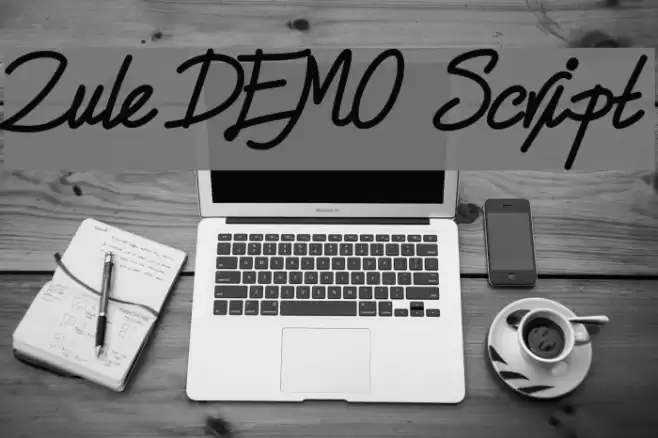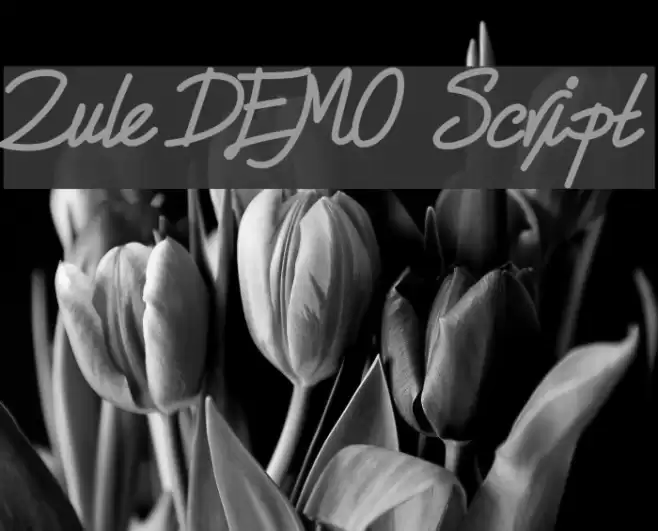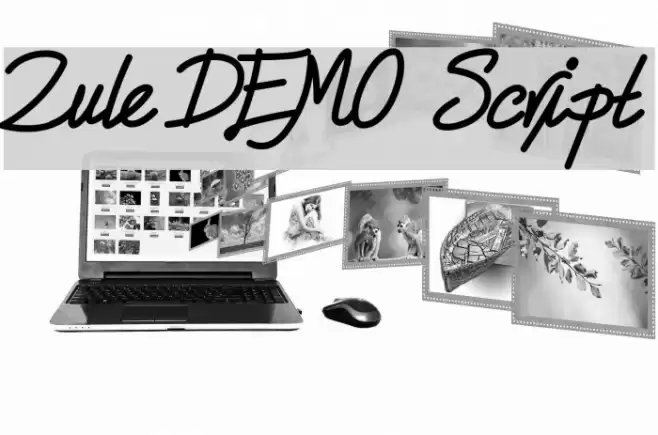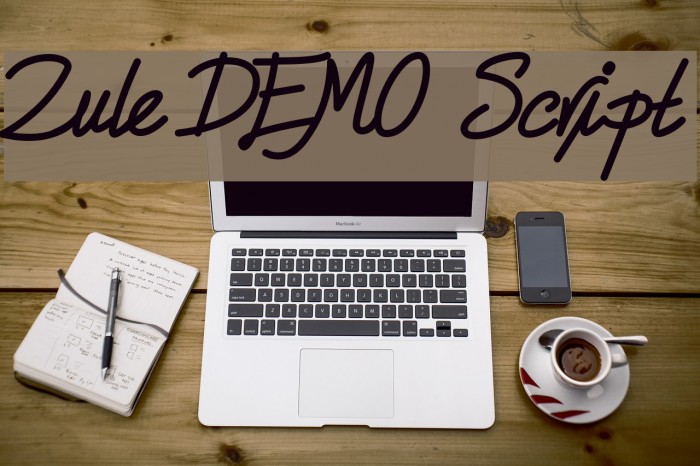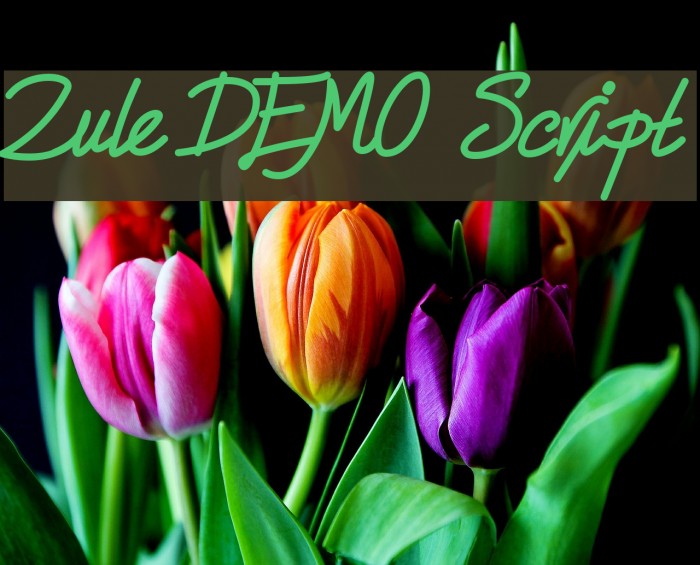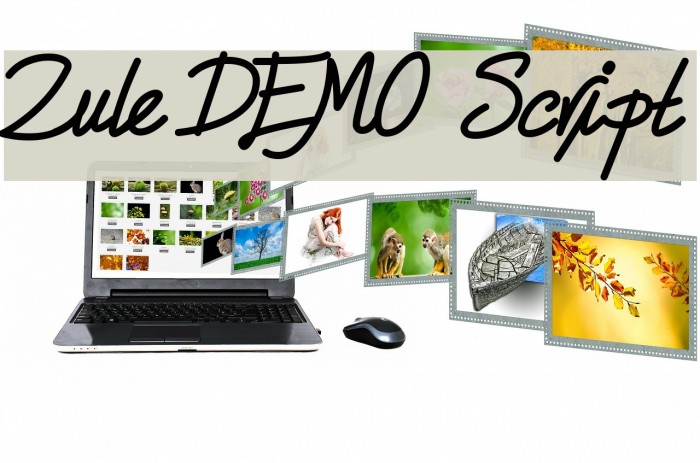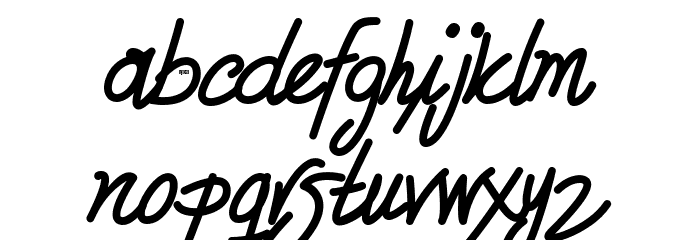
Zule DEMO Script Font
Zule DEMO Script Description
This font features a dynamic and fluid script style, characterized by its elegant, flowing lines and cursive letterforms. The uppercase letters are bold and slightly slanted, giving a sense of movement and energy. The lowercase letters maintain a consistent flow, with smooth connections between characters, enhancing readability while preserving a handwritten feel. The numerals and special characters are designed to complement the overall script style, maintaining the same fluidity and elegance. This font is ideal for projects that require a personal touch or a sense of sophistication.
A dynamic and fluid script font with elegant, flowing lines and cursive letterforms from Uncategorized fonts.
- Proposed Projects: Ideal for wedding invitations, greeting cards, branding, and logo design.
- Overall Style: Elegant
- Use Case: Logos, Invitations, Branding